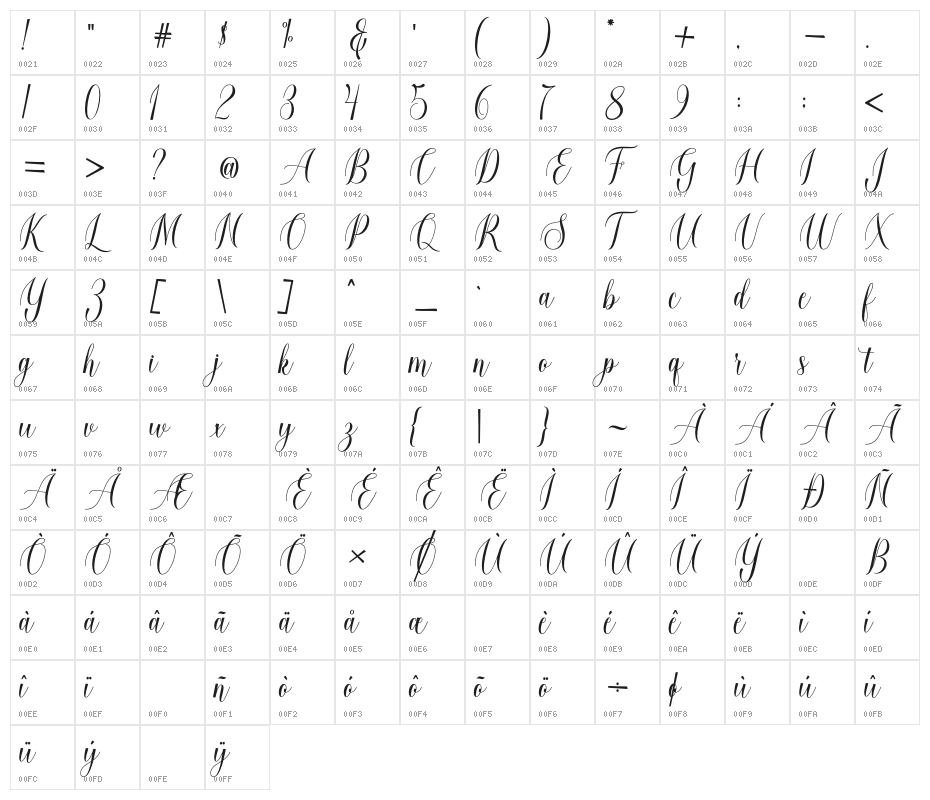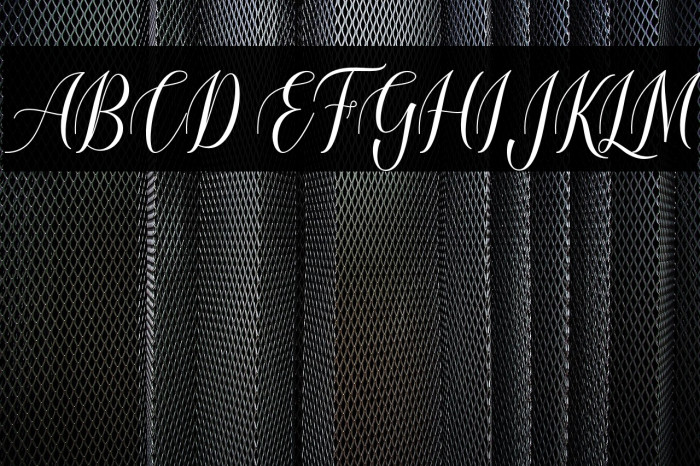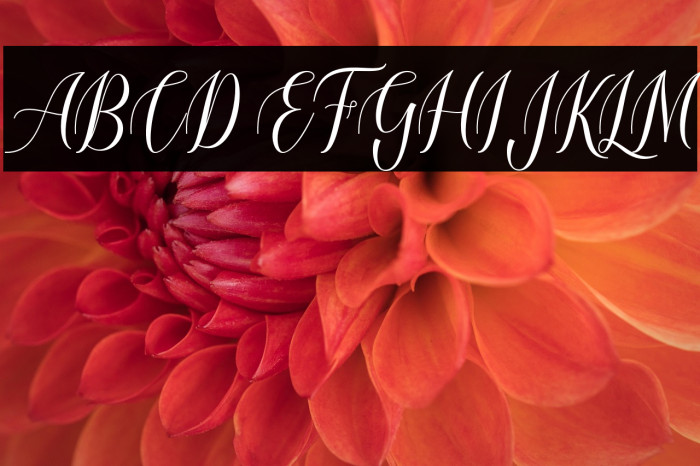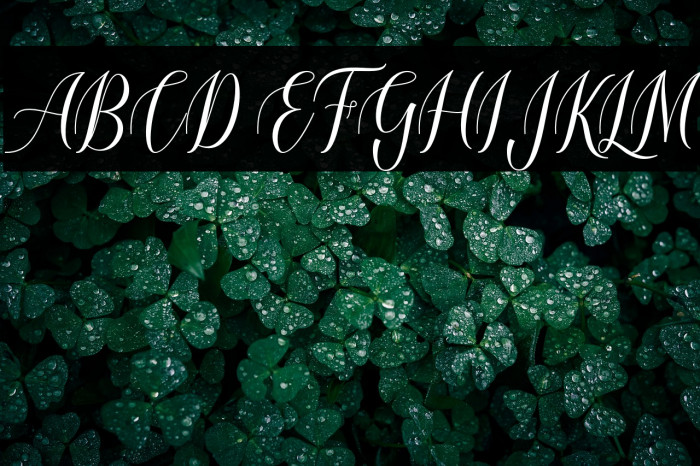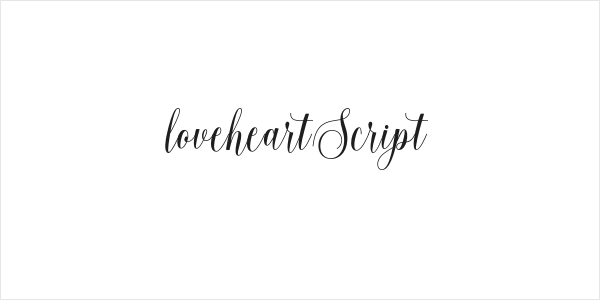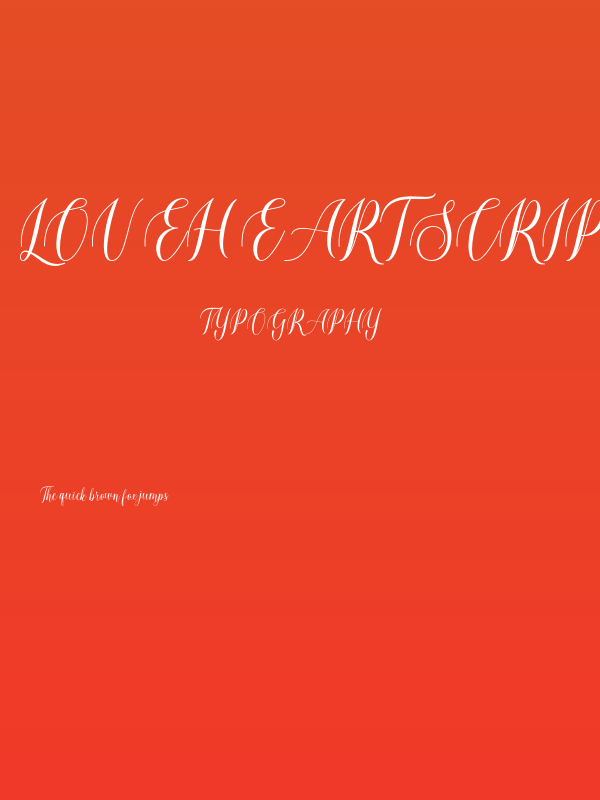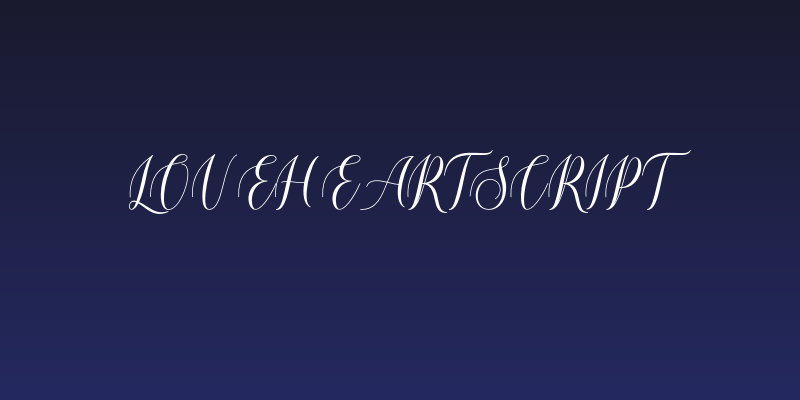
loveheartScript Font
loveheartScript Description
This elegant script font features flowing, cursive letterforms with a graceful and sophisticated appearance. The uppercase letters are characterized by their sweeping curves and loops, while the lowercase letters maintain a consistent, fluid motion. The numerals are stylishly integrated with the same cursive flair, and the special characters complement the overall aesthetic. The font's delicate strokes and high contrast between thick and thin lines add to its refined and decorative nature, making it ideal for projects that require a touch of elegance and formality.
| Overall Style | Elegant, Decorative |
| Use Case | Logos, Invitations, Decorative text |
| Proposed Projects | Ideal for wedding invitations, elegant branding, greeting cards, and luxury packaging. |